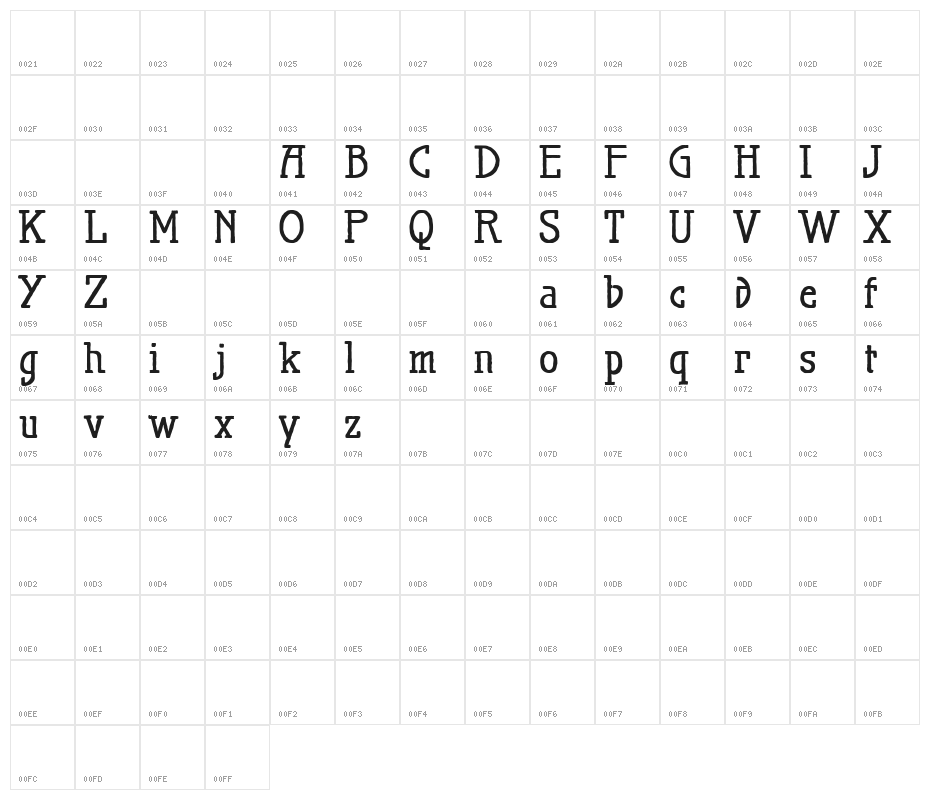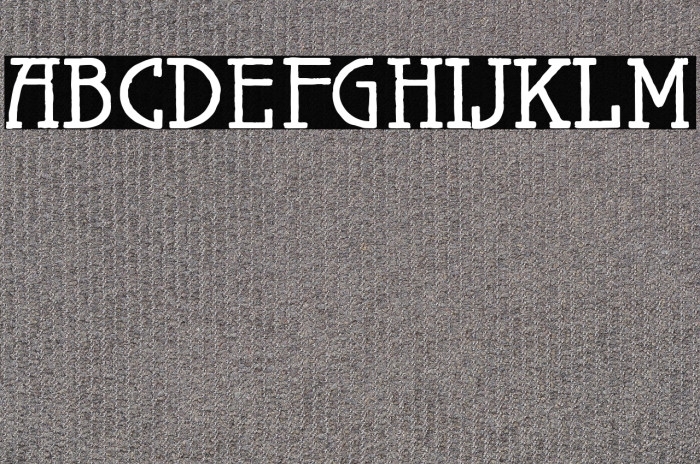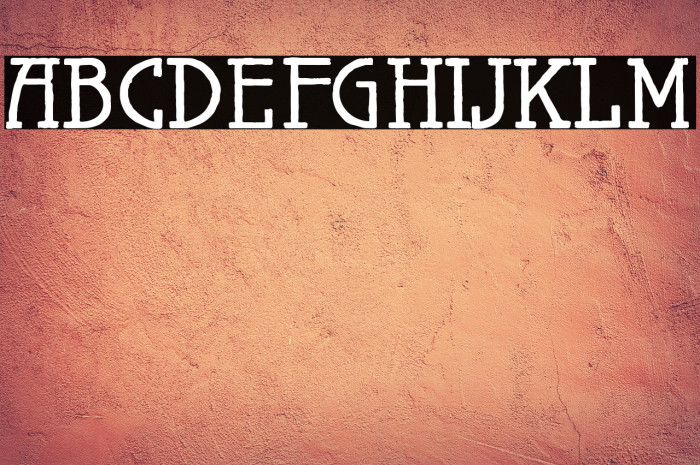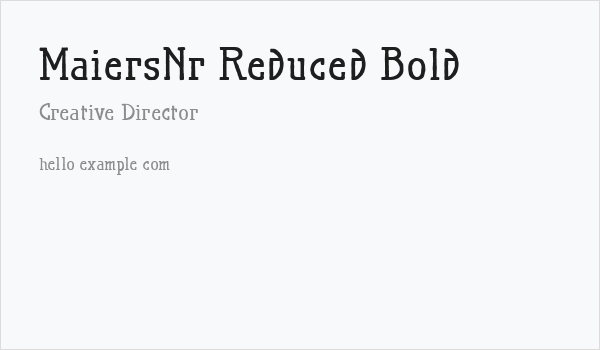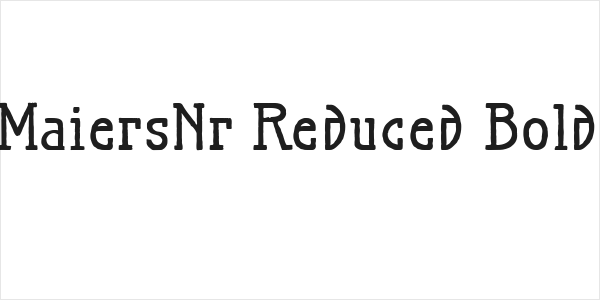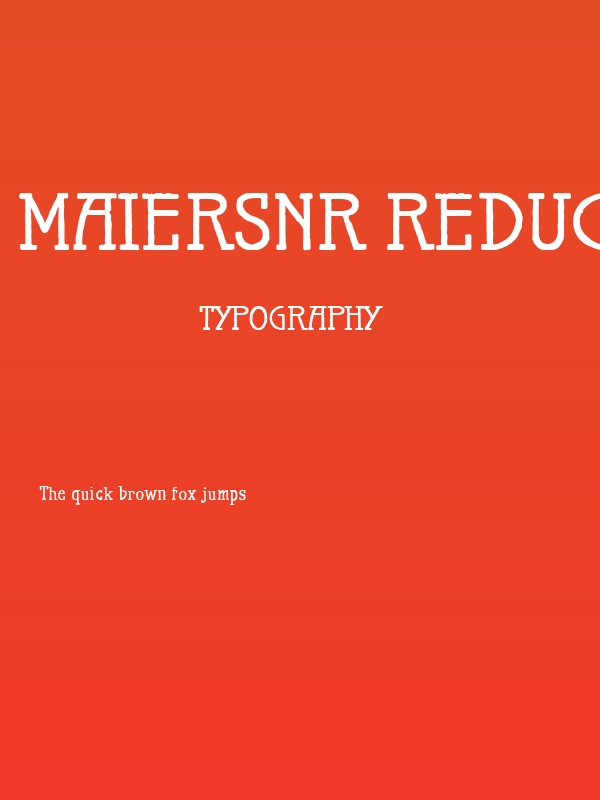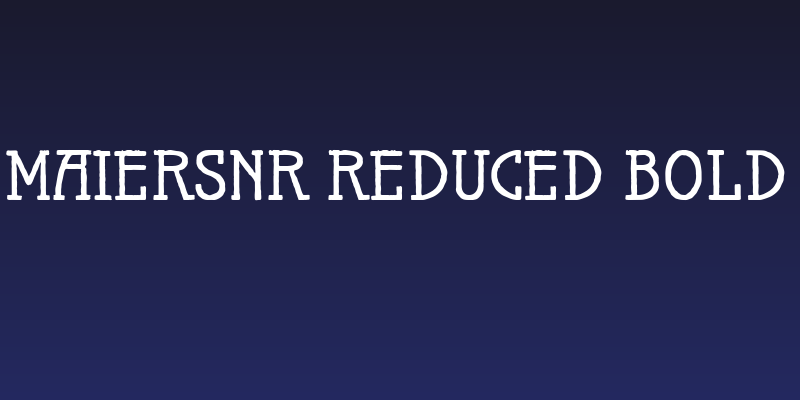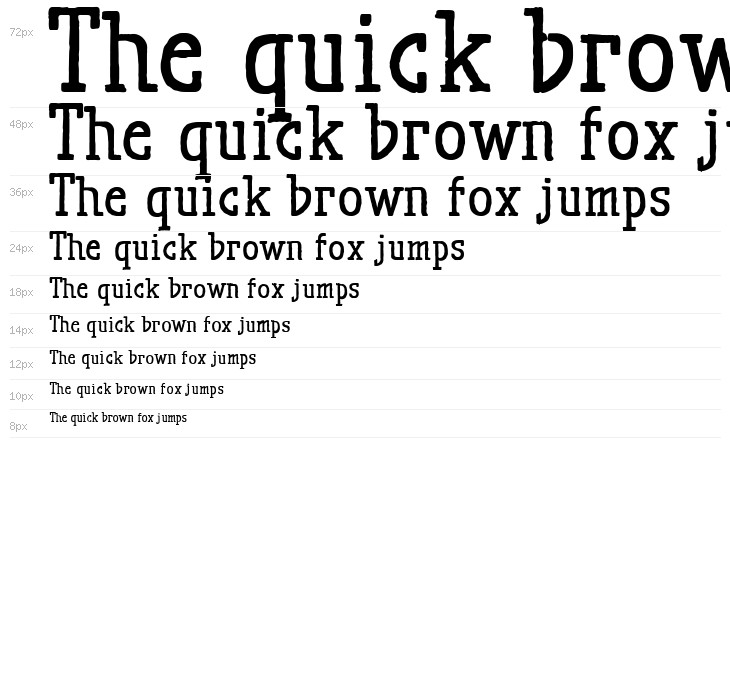
MaiersNr.Reduced-Bold Font
MaiersNr.Reduced-Bold Description
This font features a distinctive and bold style with a strong presence. The characters have a unique, slightly rough texture that gives them a handcrafted appearance. The uppercase letters are tall and commanding, while the lowercase letters maintain a consistent height, creating a balanced and cohesive look. The serifs are pronounced, adding to the font's boldness and making it suitable for attention-grabbing designs. The numbers and special characters are designed with the same bold and textured style, ensuring uniformity across all elements.
| Proposed Projects | Ideal for vintage-themed posters, book covers, branding, and logo design where a strong, bold statement is needed. |